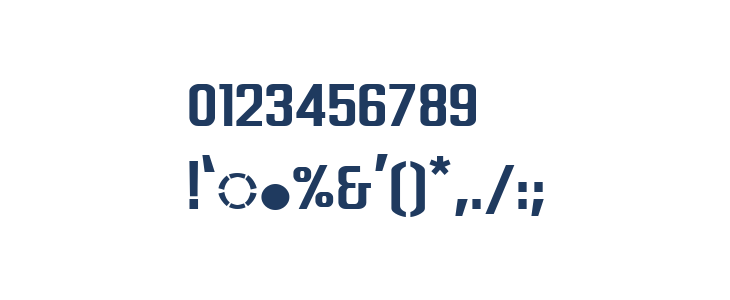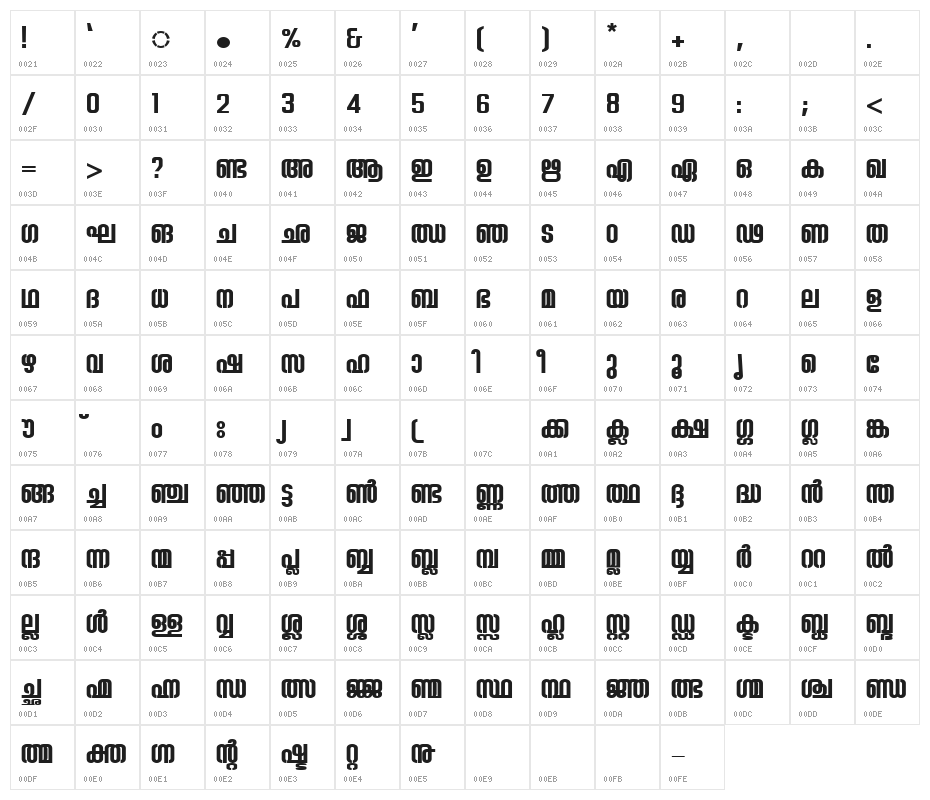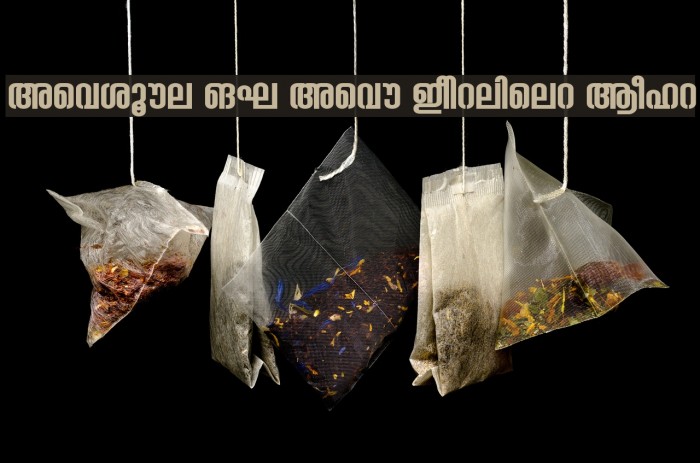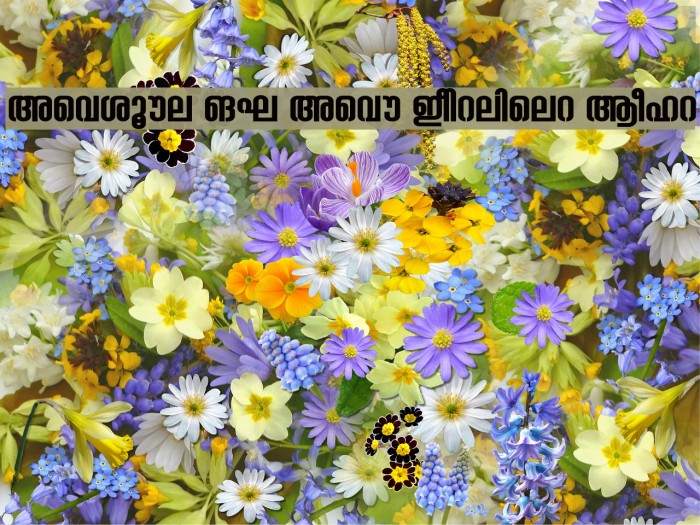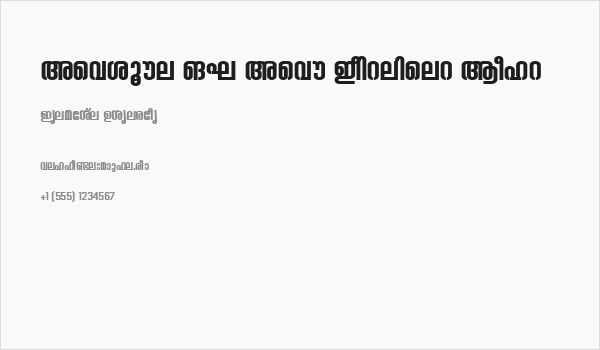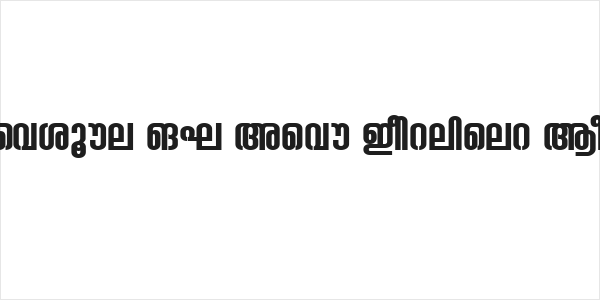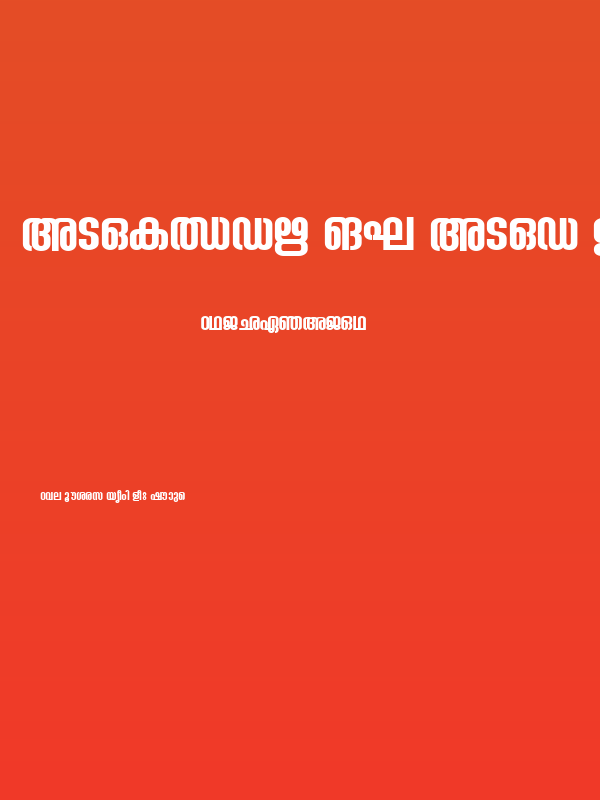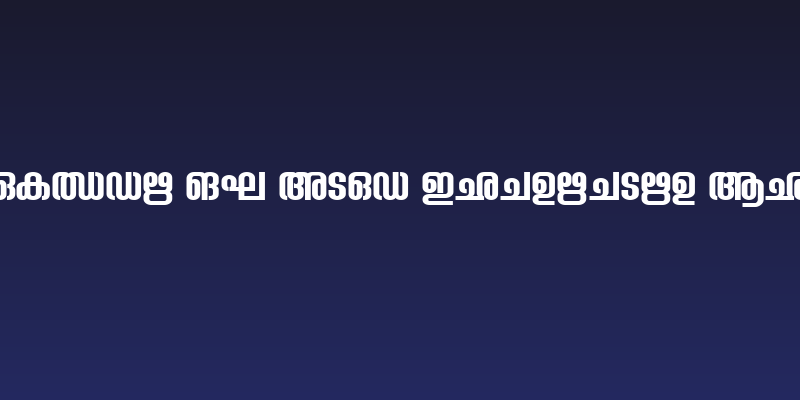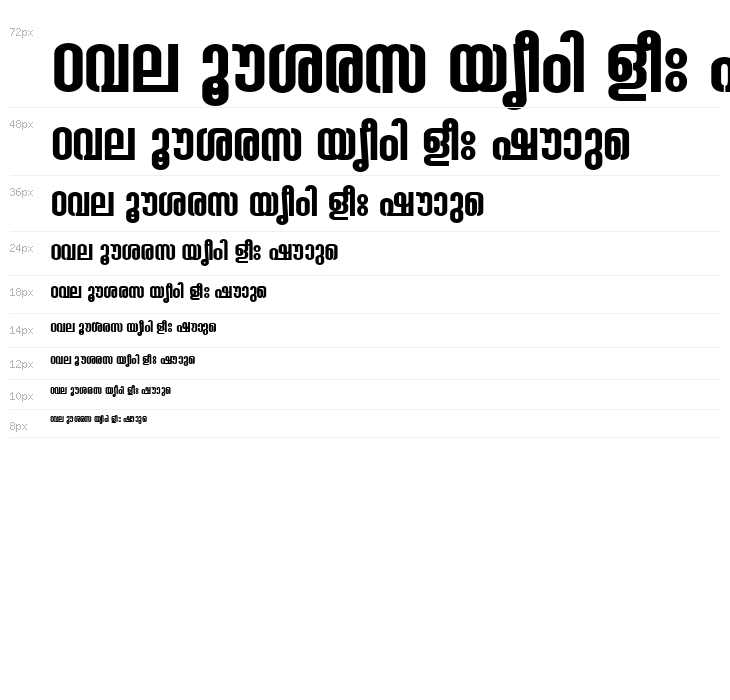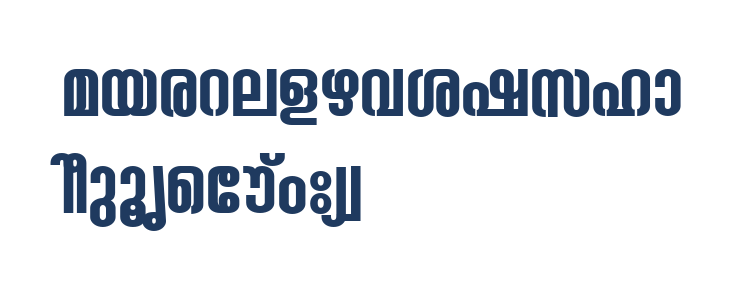
Ashique ML Ashu Condensed Bold Font
Ashique ML Ashu Condensed Bold Description
This font features a bold and condensed style, characterized by thick, uniform strokes that create a strong visual impact. The characters are tightly spaced, enhancing the compact appearance. The design is modern and clean, with a focus on readability and clarity. The numerals and special characters maintain the boldness and condensed form, ensuring consistency throughout the typeface. This font is suitable for making statements in headlines or titles, where attention-grabbing text is essential.
| Proposed Projects | Ideal for headlines, posters, advertising, and branding materials where bold and impactful text is required. |